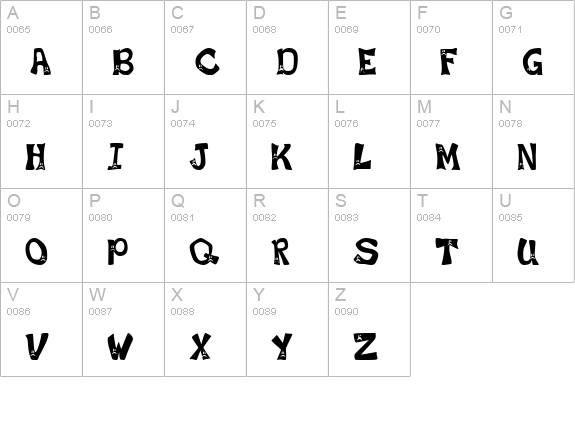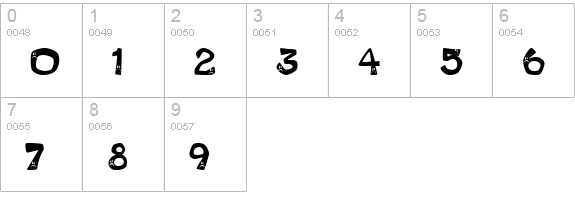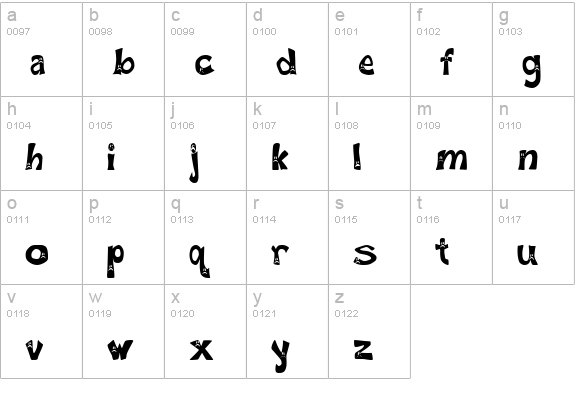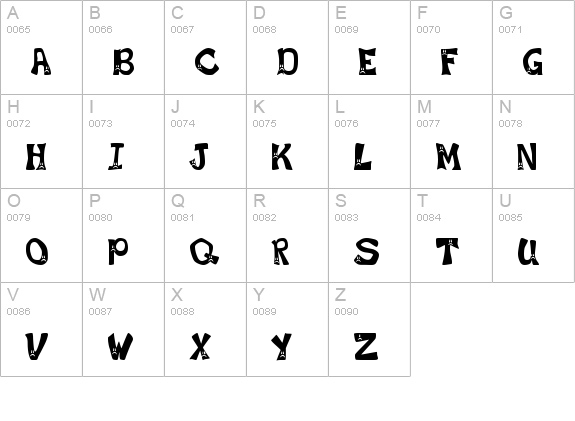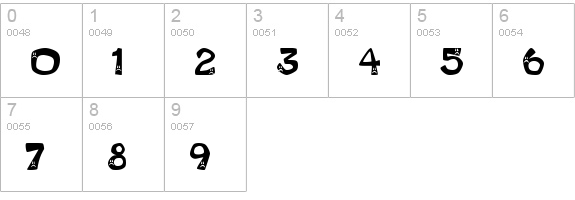
Introducing Frowny Font, a whimsical and quirky typeface that adds a touch of playfulness to any design project. With its unique combination of sharp angles and soft curves, Frowny Font is sure to make a statement wherever it is used. This font is perfect for creating eye-catching headlines, branding materials, and more. What's even better is that Frowny Font is available for free download at FontsMarket.com. So go ahead and add this charming font to your collection today and let your creativity shine with Frowny Font!